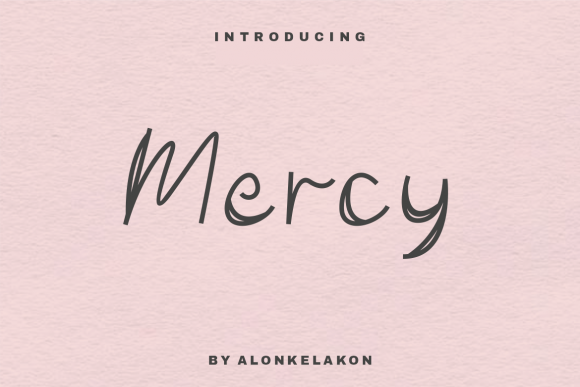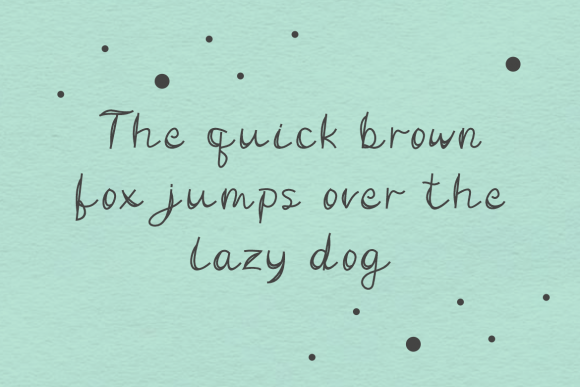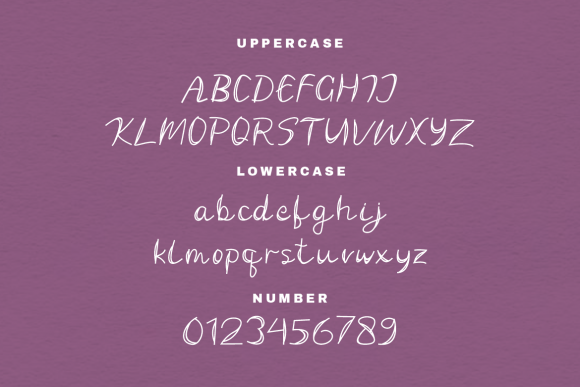
Mercy Font
About Mercy Font
Mercy is a cute handwritten font. Its sweet and full of life style makes this font a wonderful choice for brightening up your designs.